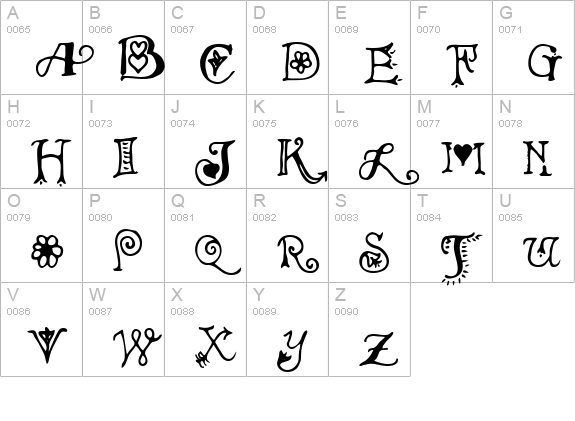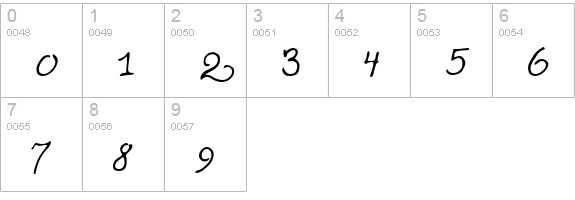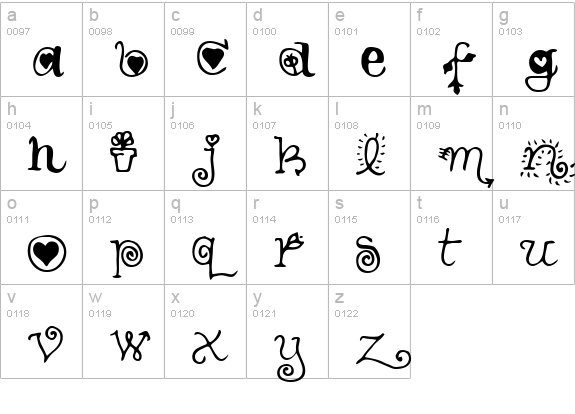
Teenage Girl 3 Font Details
Introducing Teenage Girl 3, a font that captures the essence of youthful exuberance and feminine charm. With its delicate curves and playful letterforms, this typeface is the perfect choice for any project seeking to convey a sense of youthful energy and creativity. Teenage Girl 3 is an embodiment of freedom and self-expression. Its flowing lines and whimsical details evoke a carefree spirit, making it an excellent choice for personal blogs, social media posts, or any design that aims to resonate with the young and young-at-heart. This font is not only aesthetically pleasing but also highly versatile. Whether you're designing a logo, crafting a poster, or creating a greeting card, Teenage Girl 3 will add a touch of contemporary flair to your work. Its unique personality shines through, setting your design apart from the crowd. What's even better is that Teenage Girl 3 is freely available to download at FontsMarket.com. You can unleash your creativity without any limitations, as this font grants you the freedom to explore and experiment with various design projects. Whether you're a student, a budding designer, or simply someone who appreciates beautiful typography, this font is a must-have in your collection. So, why wait? Download Teenage Girl 3 today and let your imagination run wild. Elevate your designs with its youthful charm and make a bold statement that speaks to the free-spirited souls of the world. After all, Teenage Girl 3 is not just a font, but a celebration of individuality and the beauty of being young and free.